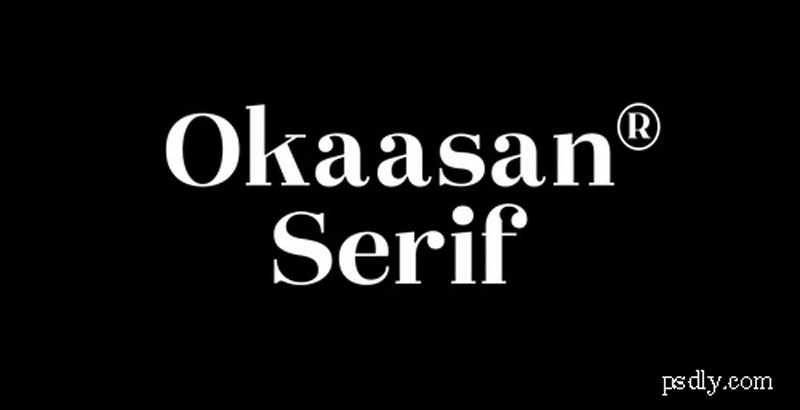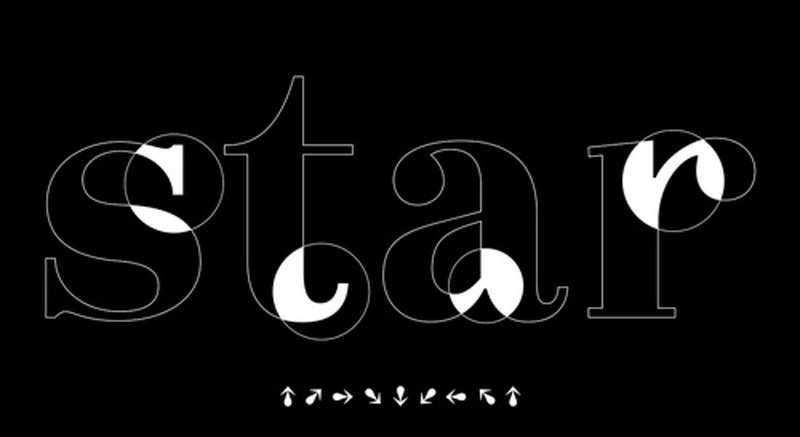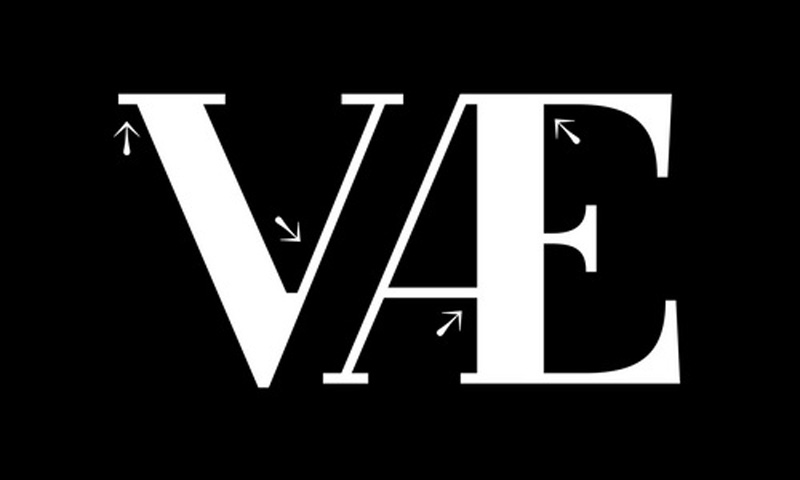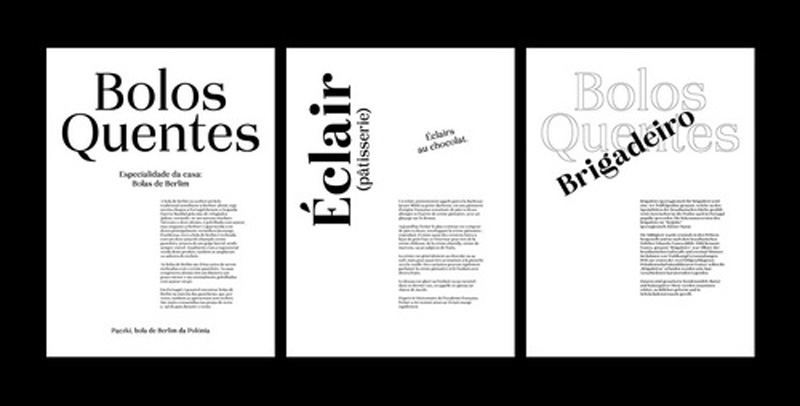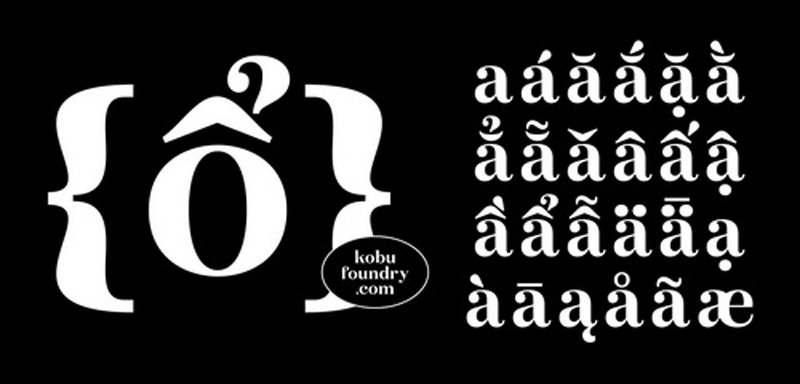
Okaasan Serif Font Family
Okaasan® Serif is a text font that distinguishes by the elegance of its characters. Inspired by the 1800’s rational mood of the Enlightenment thinking, Okaasan® presents a high contrast between thick and thin elements, fitting a Didone style.
This typeface is a high contrast modern typeface with characteristics that offer a contemporary look. Due to its wide range of weights – Light, Regular, Medium, Bold and ExtraBold – Okaasan® Serif is an elegant choice for editorial design projects, applying perfectly both for headlines as well as short pieces of text. It includes Vietnamese diacritics for greater versatility and dynamics in a typographic composition.
Designer: Brígida Guerreiro
Character Set: Basic Latin, Uppercase, Lowercase, Numerals, Diacritics, Punctuation, Symbols
Opentype Features: Kerning, Ligatures
Supported Languages: Western European, Central European, South Eastern European, Vietnamese, Pinyin